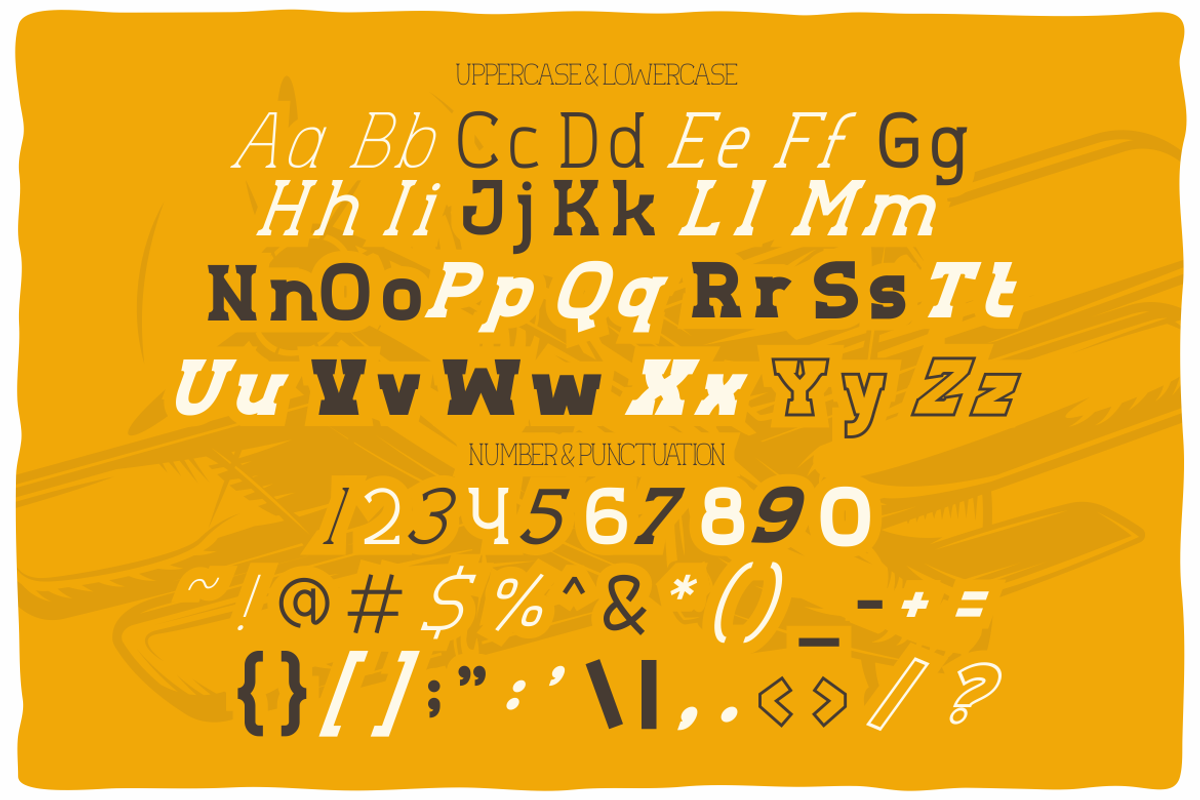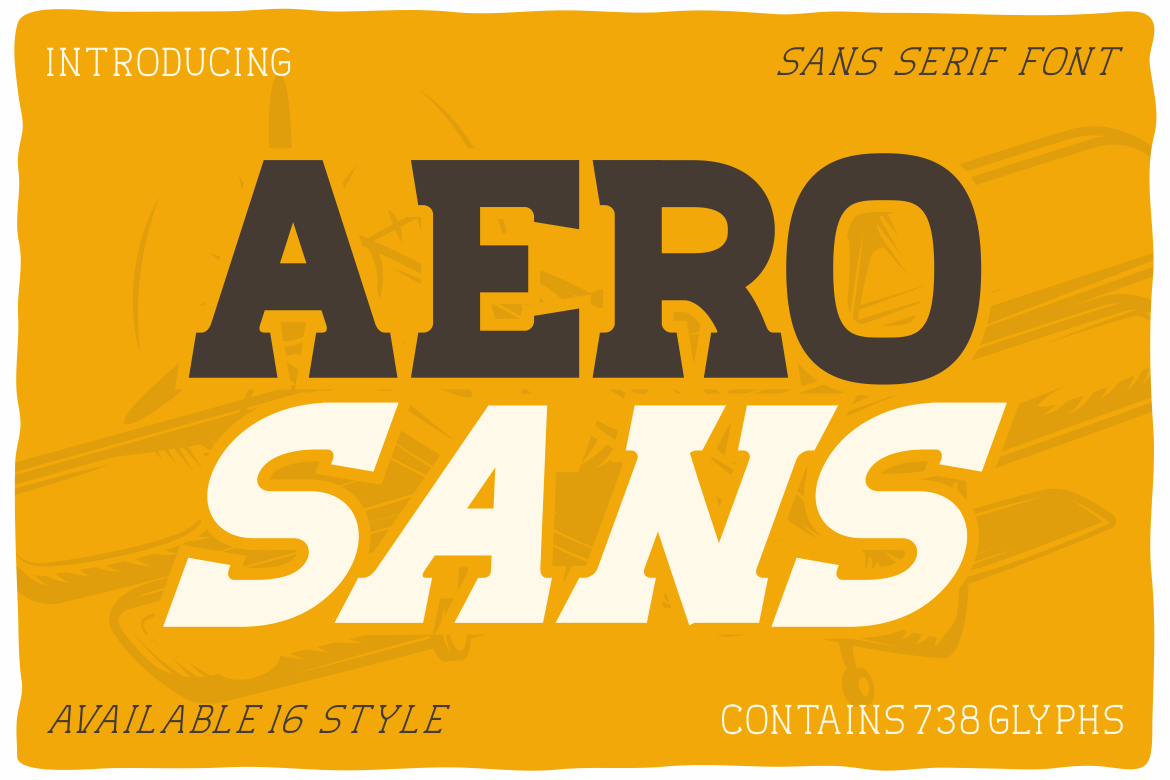
Aero Sans - Sans Serif Font
Introducing Aero Sans - Sans Serif Font, a modern and versatile typeface that boasts 16 unique styles. Perfect for a wide range of design projects, Aero Sans combines the clean lines of a sans serif font with the robust characteristics of a slab display, making it an ideal choice for creating impactful visuals. With a comprehensive set of 738 glyphs, this font ensures that you have all the characters you need for any language or design requirement. Its bold and dynamic design is perfect for logos, branding, and crafting, adding a contemporary touch to your projects.
Aero Sans is designed to be both functional and aesthetically pleasing, making it suitable for various applications, including invitations, packaging, posters, and business cards. Its versatility extends to greeting cards, stickers, children’s books, and magazines, providing a modern edge to every page. Whether you're aiming for a sleek, professional look or a creative, eye-catching design, Aero Sans delivers with its extensive style options and detailed craftsmanship. Elevate your design projects with Aero Sans, a font that combines modernity and functionality seamlessly.